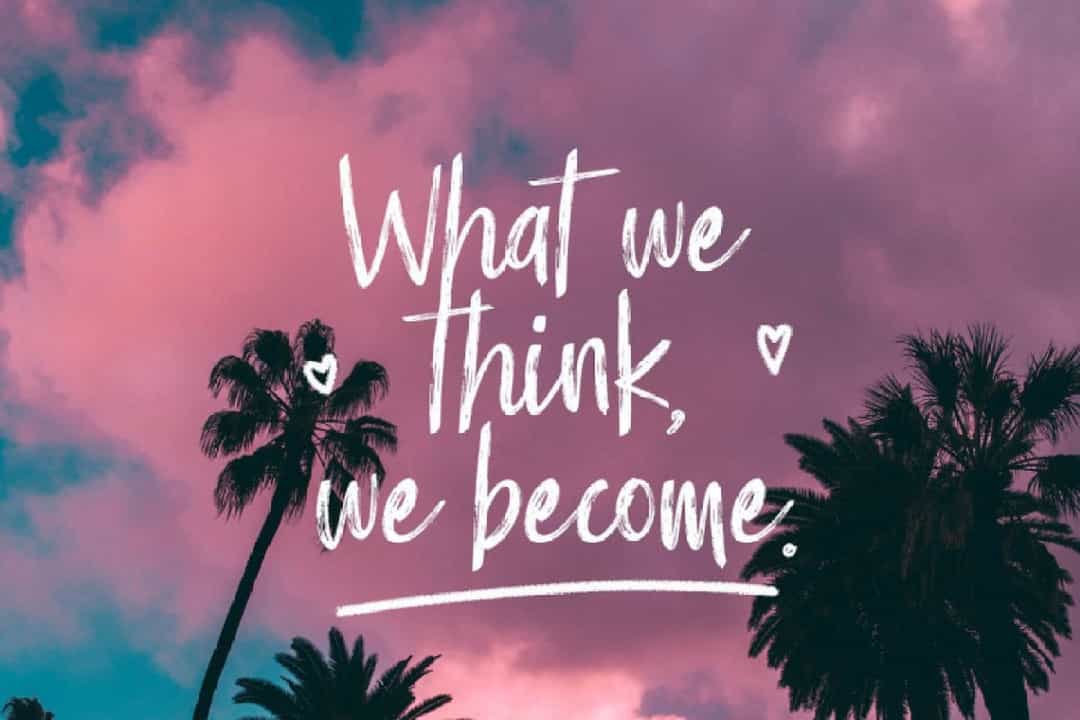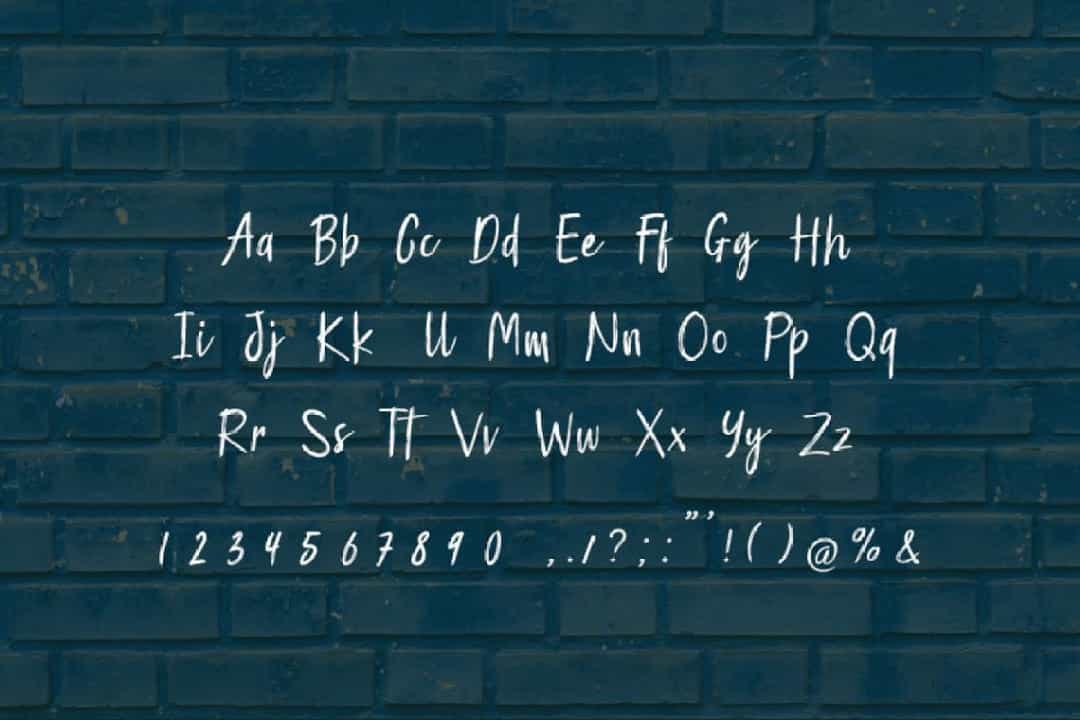
Growth Buckingham is a modern handwritten brushed font. Distinguished by curvaceous curves and perfect for editorial and fashion designs, its use will ensure excellent results in any project you undertake. Try it today – you’ll love the result.